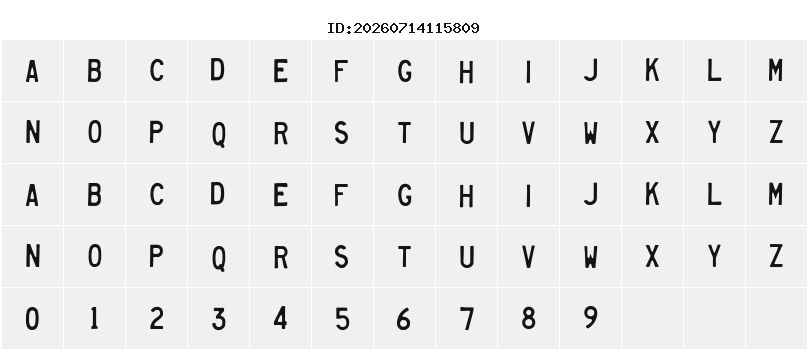
Heavy Equipment Preview
• Font Name: Heavy Equipment
About Heavy Equipment.otf
Heavy Equipment.otf is a modern, elegant sans-serif font designed for ultimate readability and visual harmony. Perfect for branding, headlines, web design, and print materials.